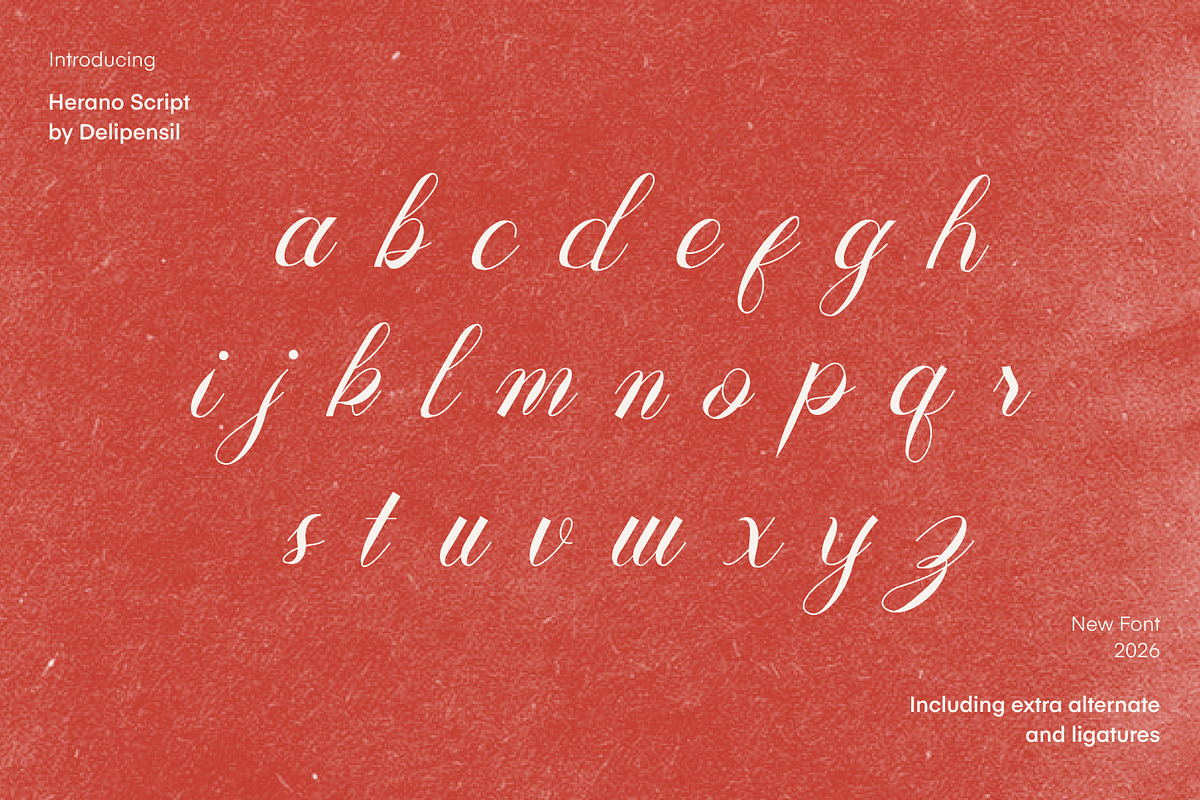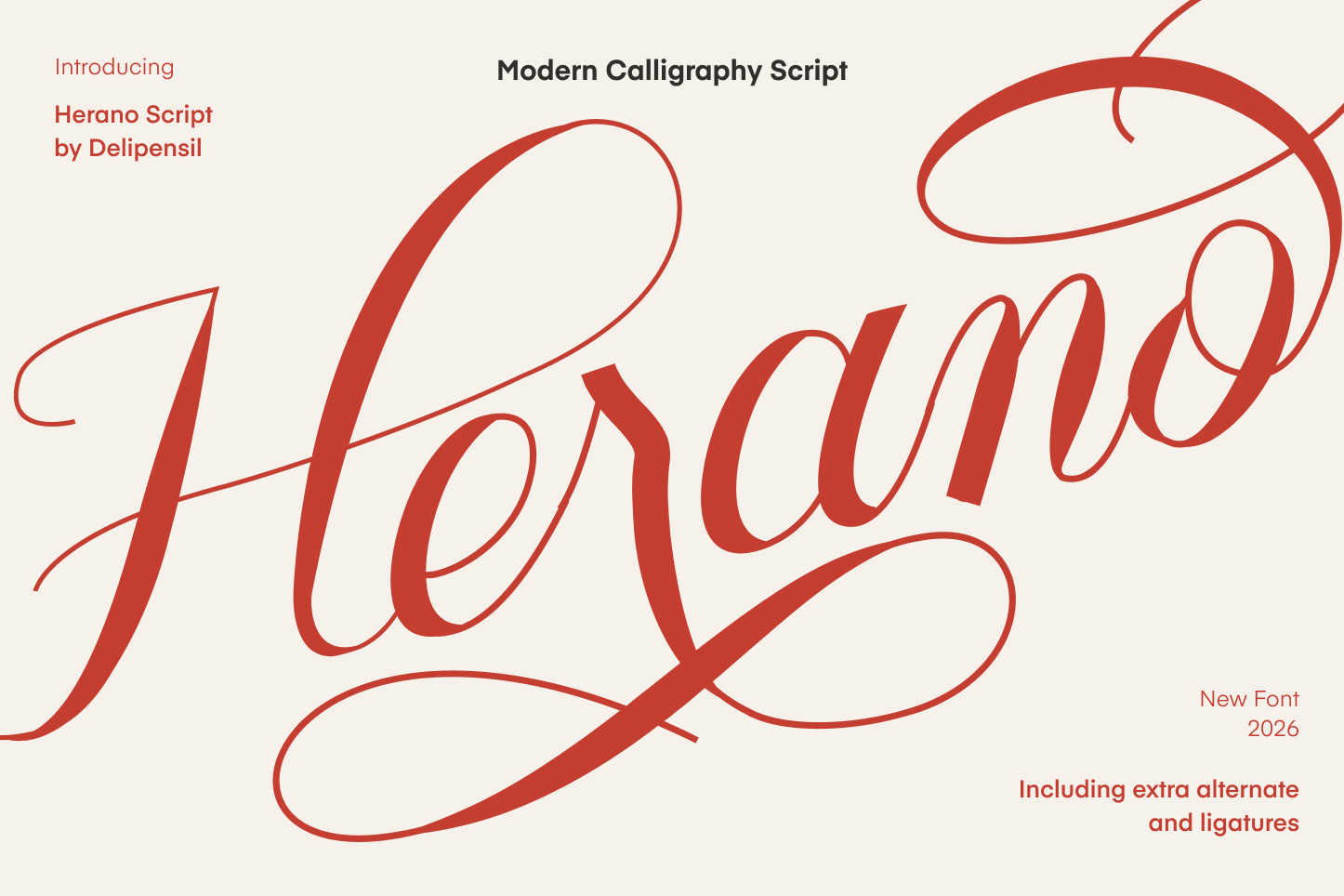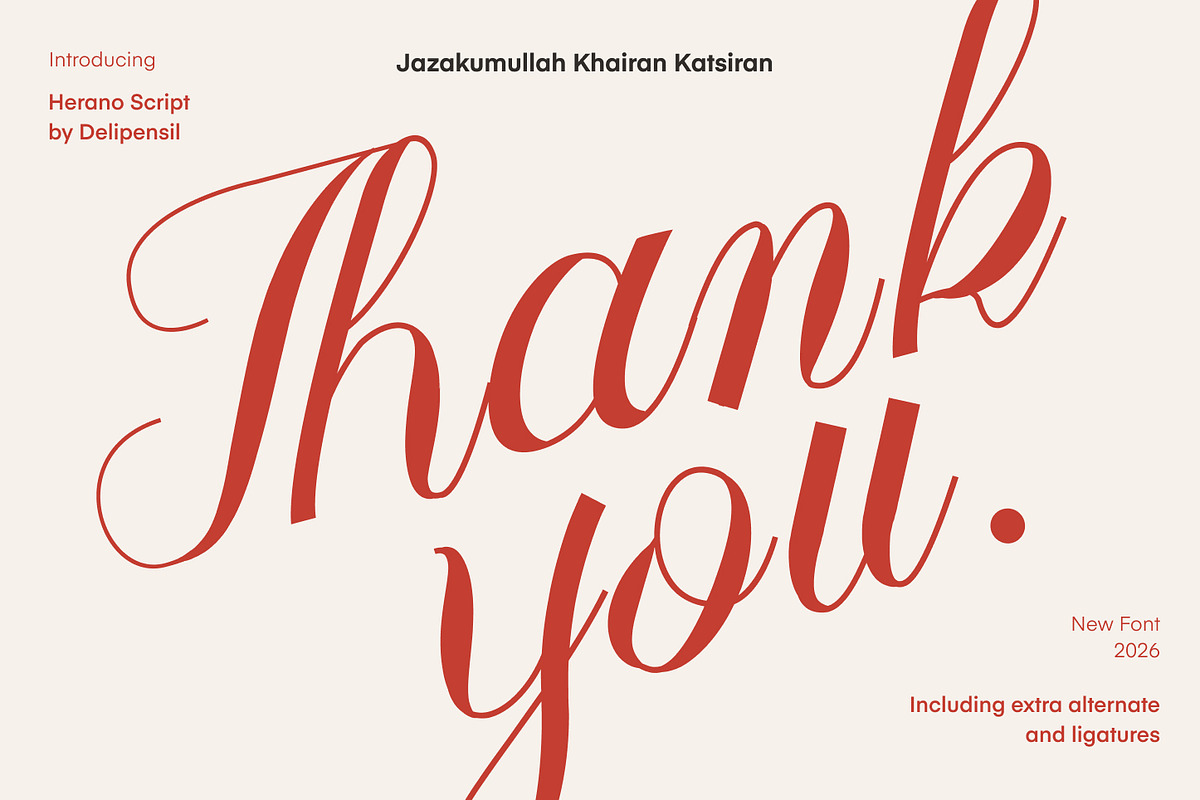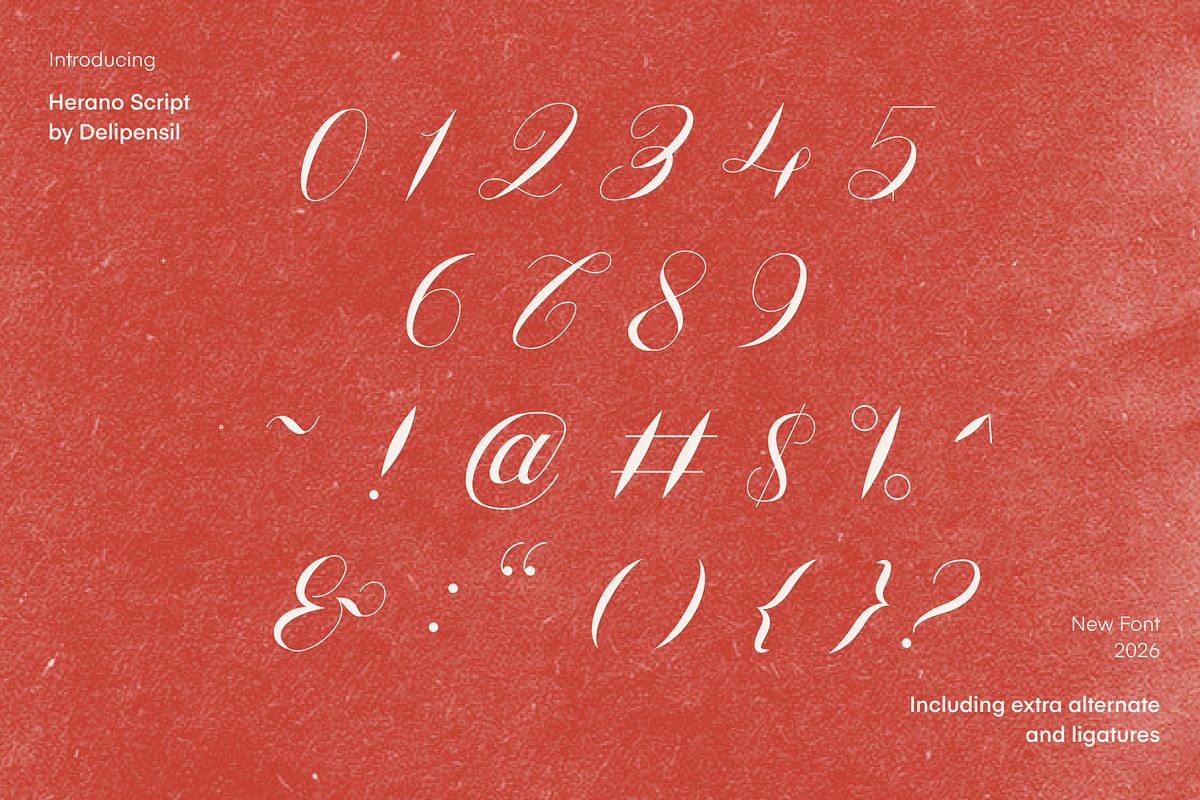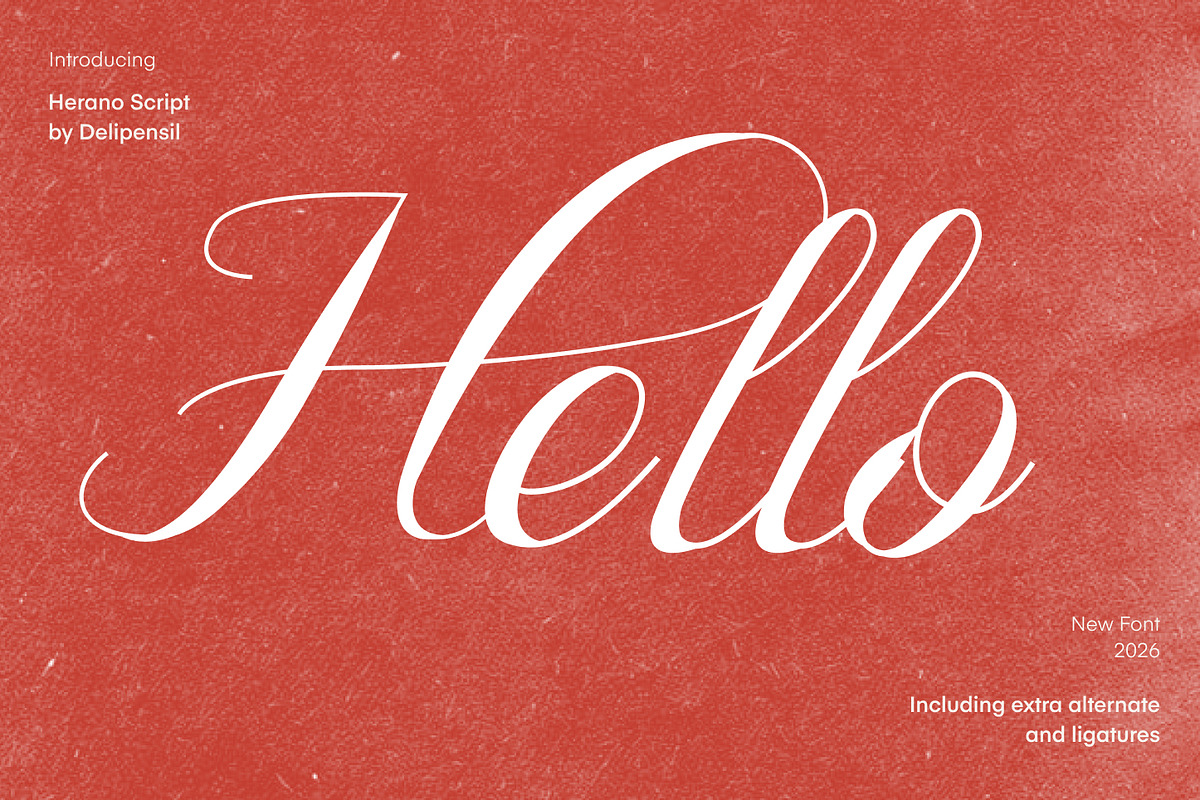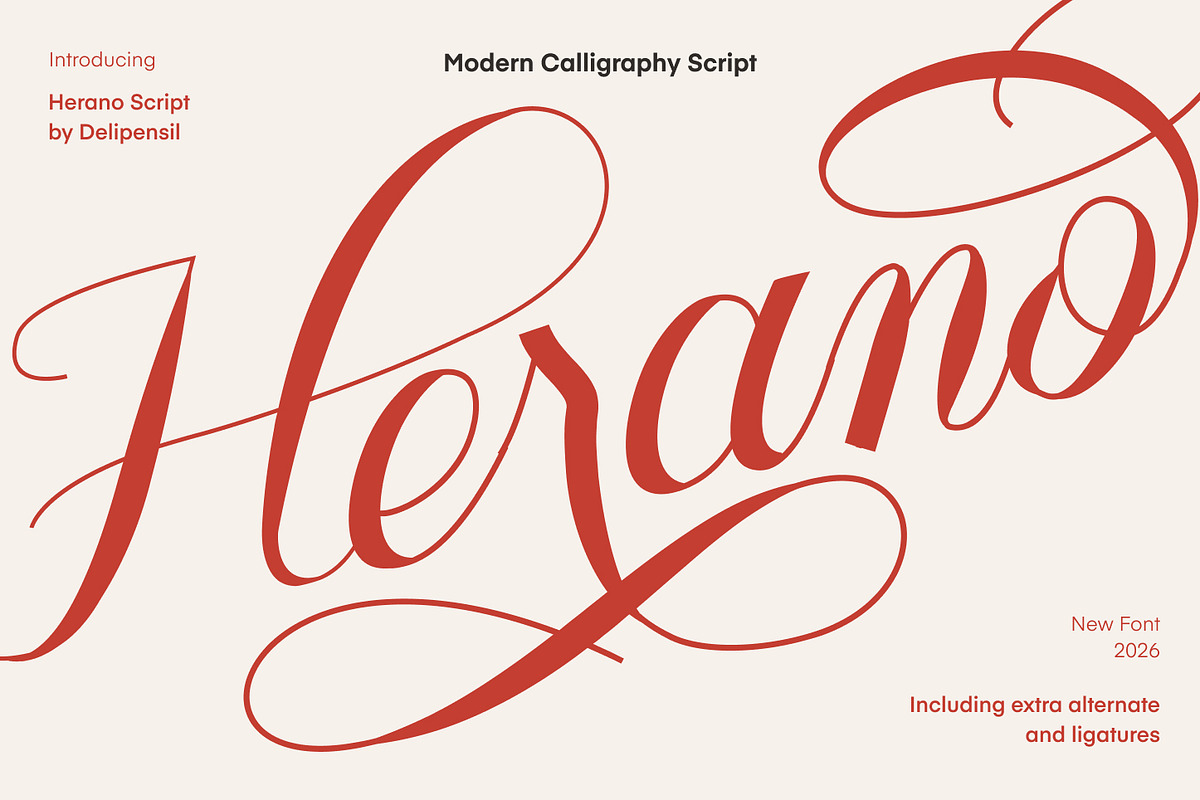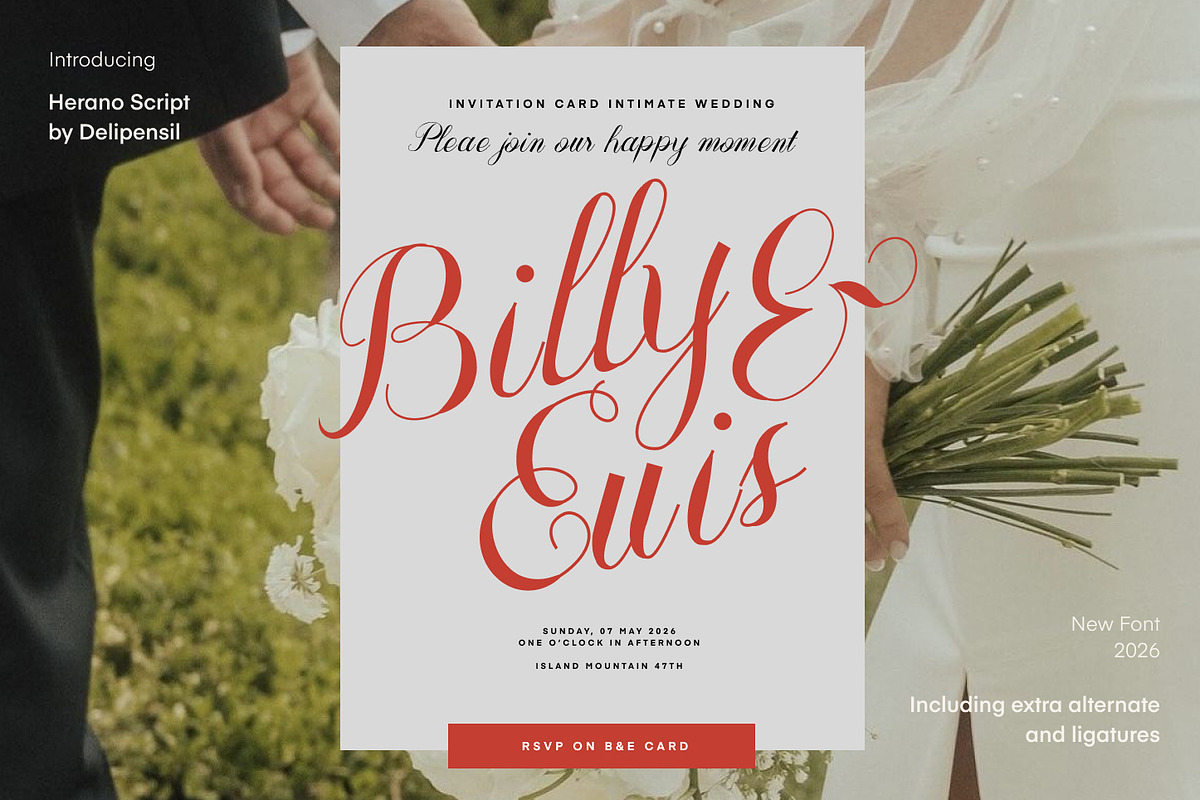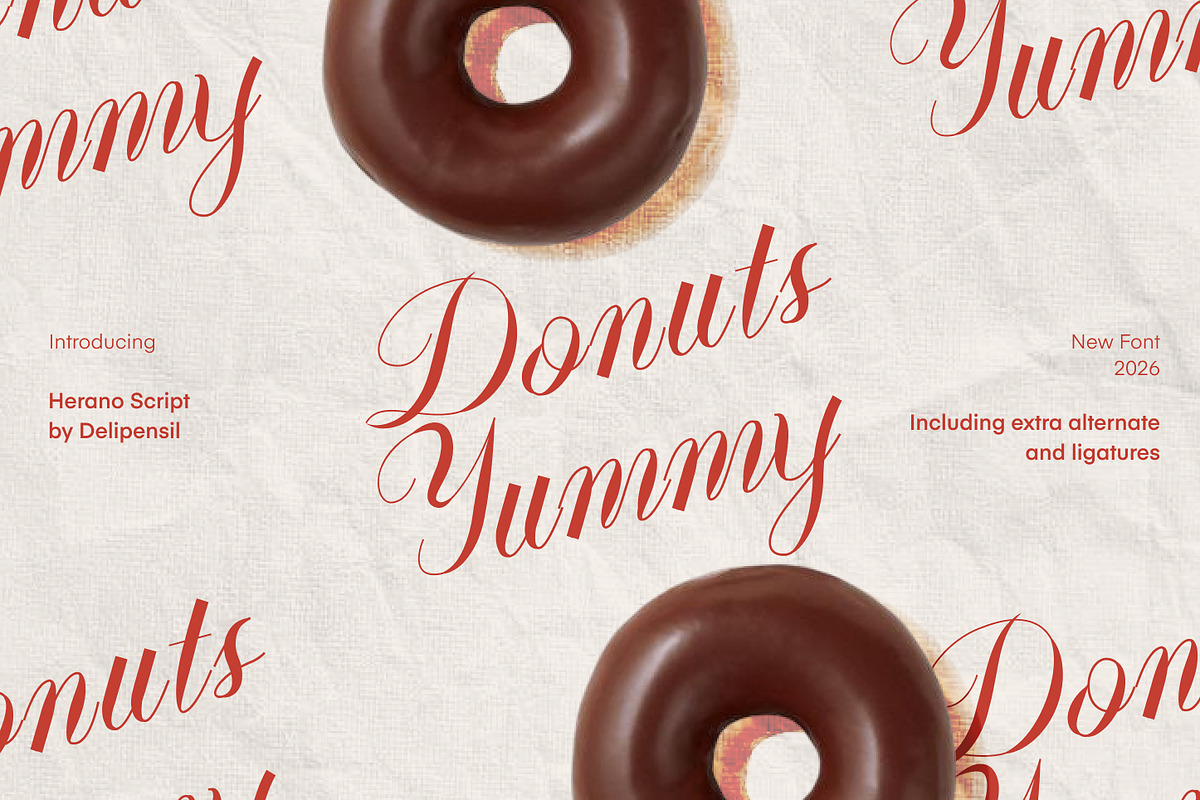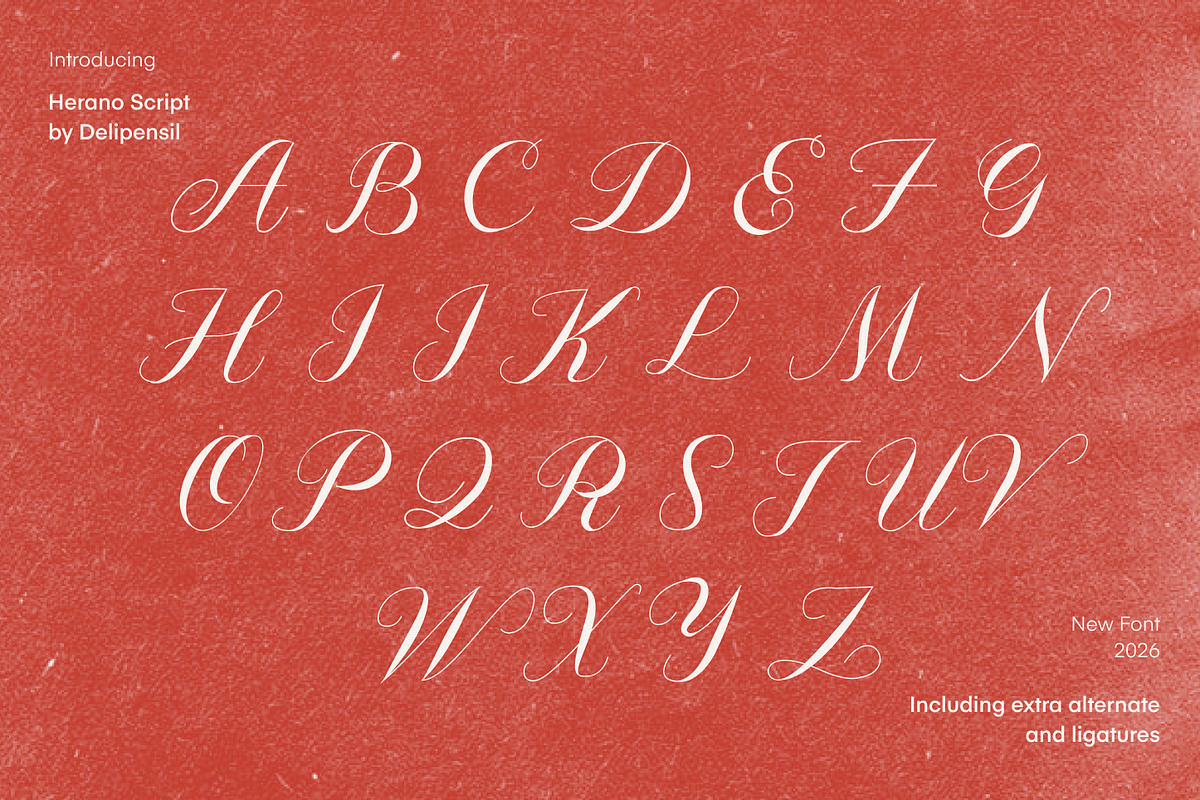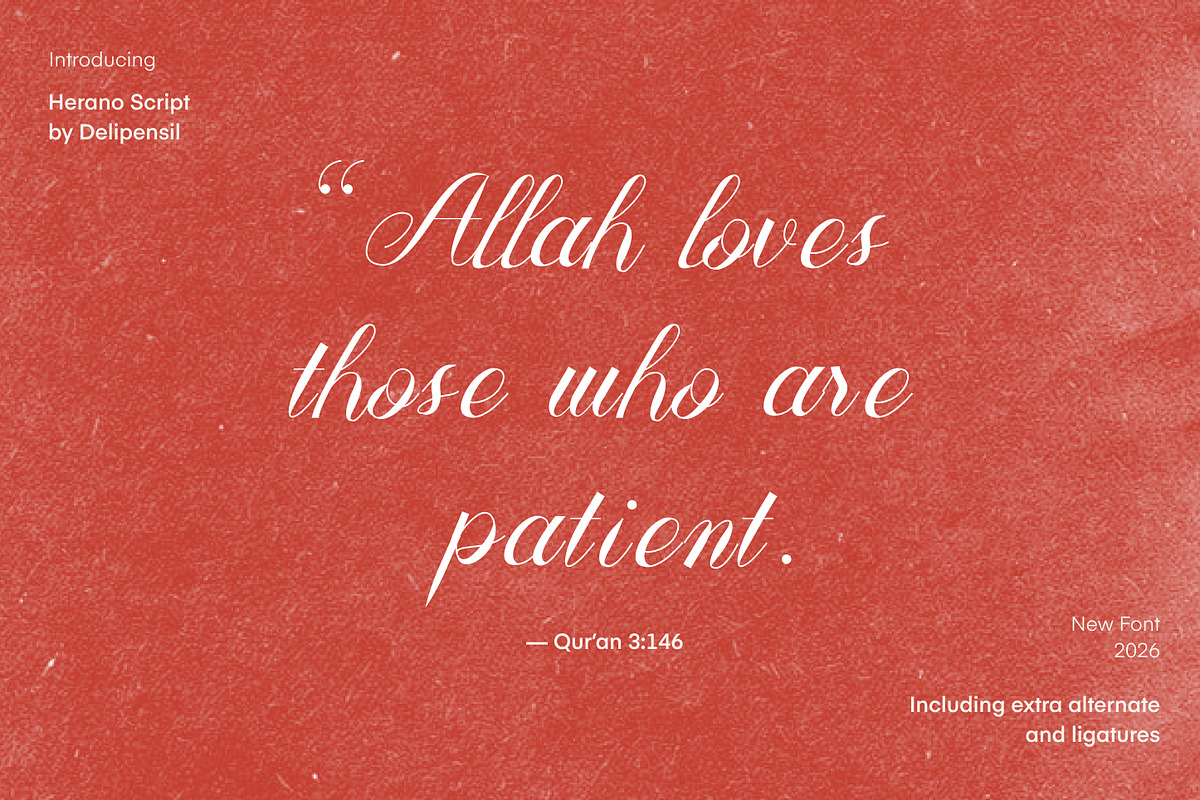
Herano - Elegant Script Font
Bismillah, Introduction Herano Script is an elegant and modern handwritten script font with smooth, flowing strokes that create a natural and sophisticated look. Carefully crafted to bring charm and personality into your designs, Herano Script is perfect for projects that need a stylish and personal touch.
This font works beautifully for logos, branding, wedding invitations, quotes, packaging, social media graphics, and many other creative projects.
Herano Script also includes beautiful alternate characters that help you create unique and expressive lettering compositions with ease.
- Uppercase & Lowercase letters
- Beautiful Alternates
- Smooth handwritten style
Perfect for designers, crafters, and creatives who want to add elegant handwritten typography to their projects.